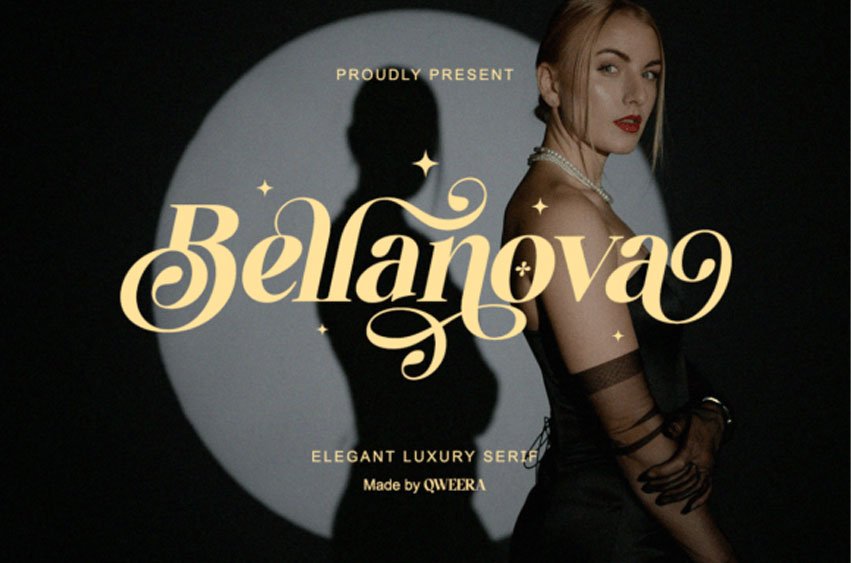
Bellanova Font is an elegant luxury serif featuring refined swashes, stylish ligatures, and glamorous high-contrast shapes.
Perfect for premium logos, wedding invitations, magazine titles, perfume packaging, and fashion branding. Its feminine yet powerful character gives every project a polished and exclusive look.